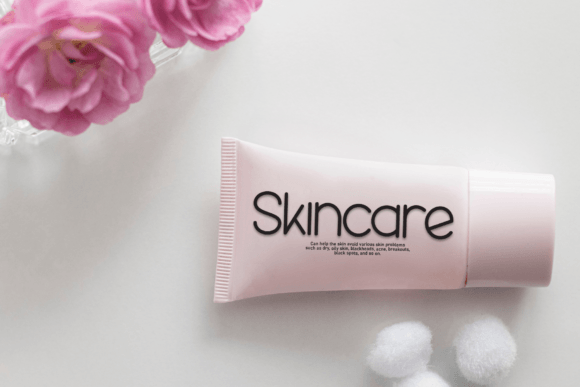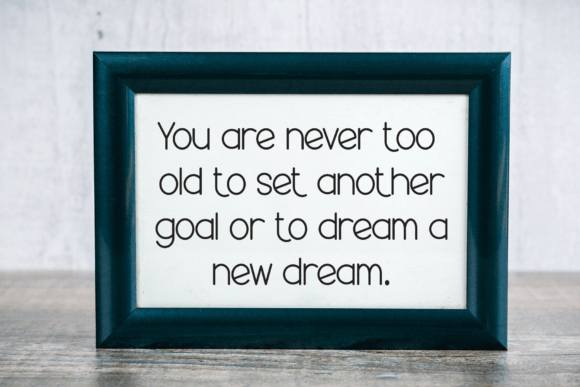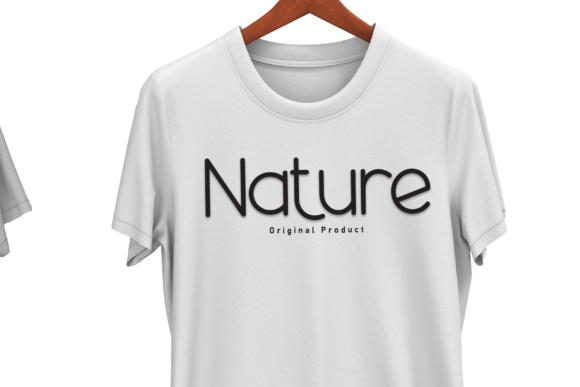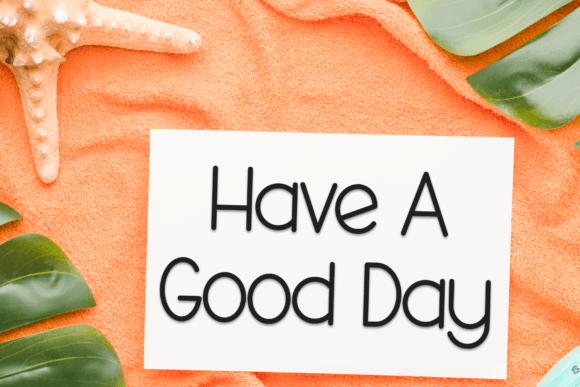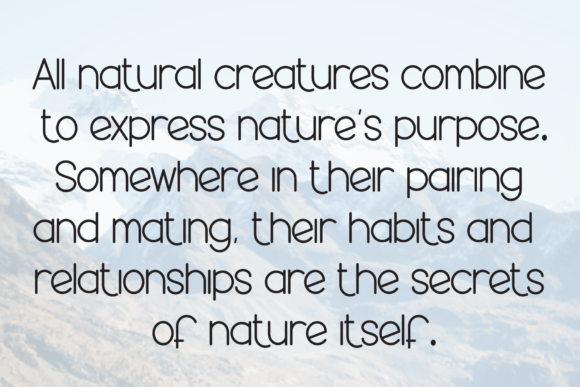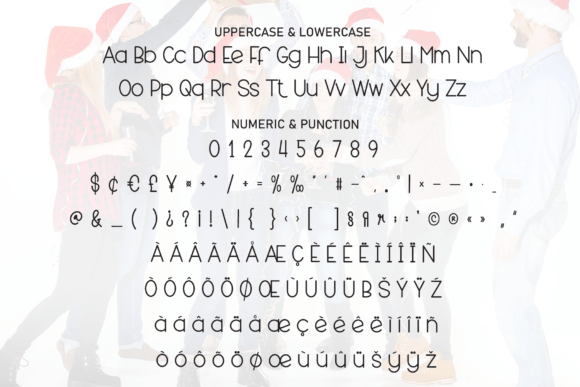
Dancing Christmas Font: A Charming Handwritten Display Font for Your Holiday Designs
Are you looking for a font that can add a touch of magic to your holiday designs? Look no further than the Dancing Christmas Font, a charming and endearing handwritten display font that is sure to bring joy and whimsy to your projects. With its delightful and playful characteristics, this font is perfect for creating festive and fun designs that will capture the spirit of the holiday season.
A Font that Effervesces with Sweetness and Affability
The Dancing Christmas Font is a beautifully crafted font that is designed to evoke a sense of sweetness and affability. Its handwritten style is reminiscent of a child’s drawing, with a playful and carefree feel that is sure to bring a smile to your face. The font’s delicate lines and curves are carefully crafted to create a sense of movement and energy, giving your designs a lively and dynamic feel.
Perfect for Wedding Invitations, Greeting Cards, and More
While the Dancing Christmas Font is perfect for holiday designs, its versatility makes it suitable for a wide range of projects. Use it to create beautiful wedding invitations, greeting cards, and other paper crafts that require a touch of elegance and whimsy. The font’s playful characteristics also make it ideal for creating fun and quirky designs for children’s parties, birthday cards, and other celebrations.
A Creative Tool for Weaving Stories in Print or Digital Canvases
The Dancing Christmas Font is more than just a font – it’s a creative tool that allows you to weave stories in print or digital canvases with a touch of whimsy. Use it to create engaging and interactive designs that capture the imagination of your audience. Whether you’re a designer, crafter, or DIY enthusiast, this font is sure to inspire you to create something truly special.
Key Features of the Dancing Christmas Font
- Handwritten style: The Dancing Christmas Font features a beautiful handwritten style that is perfect for creating personal and unique designs.
- Playful characteristics: The font’s playful characteristics make it ideal for creating fun and quirky designs that capture the spirit of the holiday season.
- Delicate lines and curves: The font’s delicate lines and curves are carefully crafted to create a sense of movement and energy, giving your designs a lively and dynamic feel.
- Versatile: The Dancing Christmas Font is suitable for a wide range of projects, from wedding invitations and greeting cards to children’s parties and birthday cards.
Tips for Using the Dancing Christmas Font
Here are a few tips for using the Dancing Christmas Font in your designs:
- Use it sparingly: While the Dancing Christmas Font is perfect for creating fun and playful designs, it’s best to use it sparingly to avoid overwhelming your design.
- Pair it with other fonts: The Dancing Christmas Font pairs well with other fonts, such as serif and sans-serif fonts, to create a unique and interesting design.
- Experiment with colors: The Dancing Christmas Font looks great in a variety of colors, from bright and bold to soft and pastel.
The Dancing Christmas Font is a charming and endearing handwritten display font that is sure to bring joy and whimsy to your holiday designs. With its delightful and playful characteristics, this font is perfect for creating festive and fun designs that will capture the spirit of the holiday season. Whether you’re a designer, crafter, or DIY enthusiast, this font is sure to inspire you to create something truly special.